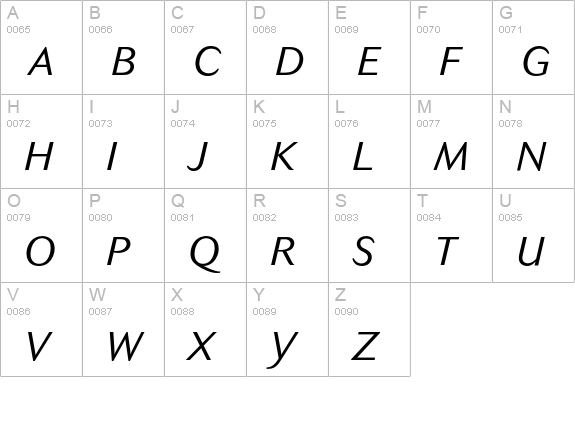
Cosmos BQ Light Italic is a refined, elegant, italic variant in the Cosmos typeface family \xE2\x80\x94 well suited to elegant body text, refined sub-headings, and luxury branding.
The Cosmos BQ Light Italic font is a modern and elegant typeface that exudes sophistication and style. Its sleek and slender letterforms convey a sense of grace and fluidity, making it perfect for adding a touch of sophistication to any design project. The italicized style adds a subtle flair and elegance to your text, making it stand out in a subtle yet impactful way. What's even better is that this exquisite font is available for free download at FontsMarket.com. So you can easily elevate your designs without having to spend a dime. Whether you're working on a branding project, a website design, or any other creative endeavor, the Cosmos BQ Light Italic font is sure to add a touch of class and refinement to your work. Download it today and take your designs to the next level!